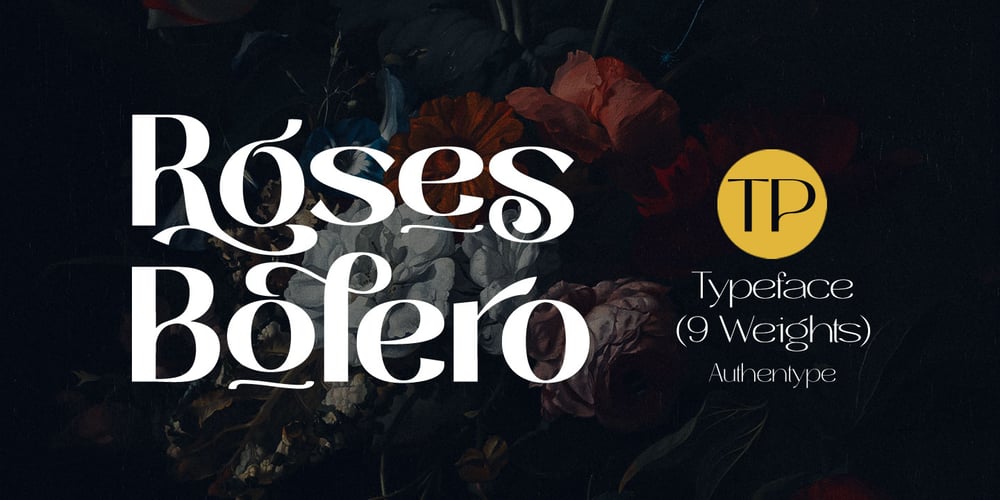
Roses Bolero TP Font Family was designed by Mix Jpg and published by Authentype. Roses Bolero TP contains 9 styles and family package options. Roses Bolero TP Elegant Sans Serif is a sans serif font with full set of uppercase and lowercase letters, multilingual symbols, numerals, punctuation and ligatures. Roses Bolero elegant sans serif font classic and elegant style for poster design, magazines, beauty branding with a flower-shaped asterisk glyph suitable for your beautiful and elegant design concept.FeaturesStandard glyphs uppercase and lowercase lettersNumerals, a large range of punctuation and ligatures.Lowercase letters include ending swashes.Works on PC & Mac.Simple installations, accessible in the Adobe Illustrator, Adobe Photoshop, Adobe InDesign, even work on Microsoft Word.PUA Encoded Characters – Fully accessible without additional design software.Fonts include multilingual support for; ä ö ü Ä Ö Ü ß ¿ ¡________________________________________________________________________________________________________________________________________________Image used : All photographs/pictures/logo/vector used in the preview are not included, they are intended for illustration purpose only.Thank you for your purchase!Hope you enjoy with our font!Designers: Ekayasa.